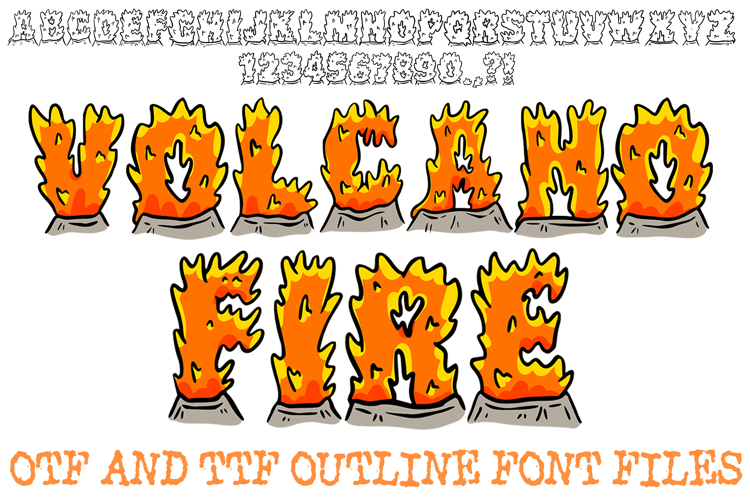
Volcano Fire Doodle Font Flames Lettering ABC Typography OTF
Ignite your creativity with the Volcano Fire Doodle Font! This explosive hand-drawn display alphabet features bold, molten letterforms erupting from rocky volcanic bases, topped with vibrant orange and yellow flickering flames. It is the ultimate choice for adventure-themed party invitations, high-energy gaming graphics, tropical vacation scrapbooking, and bold children’s apparel.
Each character is designed to look like a mini erupting volcano, blending rugged textures with playful, animated fire details that bring heat and excitement to your typography. Whether you are designing for a science-themed project or a "lava" inspired birthday bash, this font offers a high-impact, illustrative aesthetic that is both fun and fierce.
Why Your Designs Will Erupt:
Animated Flame Details: Every letter and number is crowned with jagged, bright fire bursts for a cohesive "burning" look.
Rocky Volcanic Bases: Each character sits on a detailed, hand-drawn mountain base, providing a unique grounded structure.